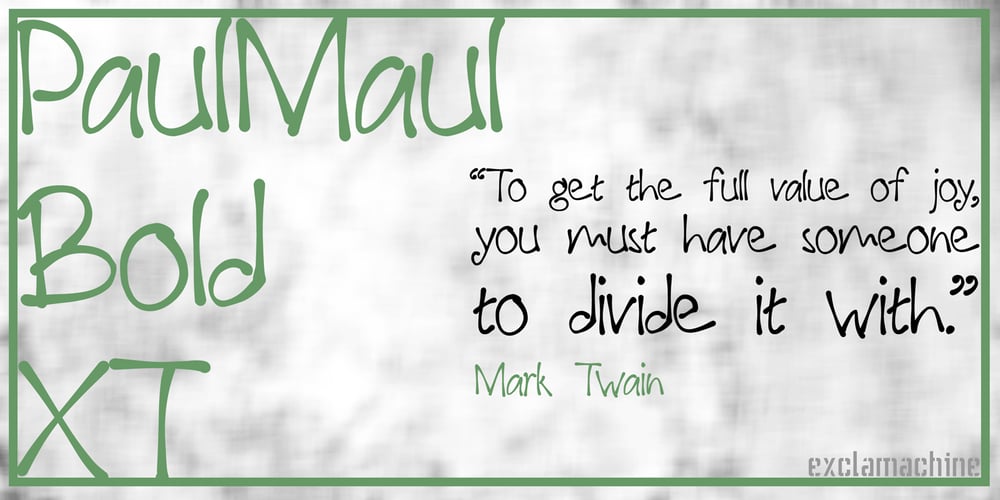
Paul Maul XT Font Family was designed by Choz Cunningham and published by !Exclamachine. Paul Maul XT contains 1 styles and family package options. PaulMaul XT is a lighthearted typeface made for energetic expression. Bold and casual, PaulMaul jumps at the reader with distinct punctuation and style in headers, captions, sidebar quotes and fun interfaces. PaulMaul has been greatly expanded and now features a rich set of accents for European and Asian applications!